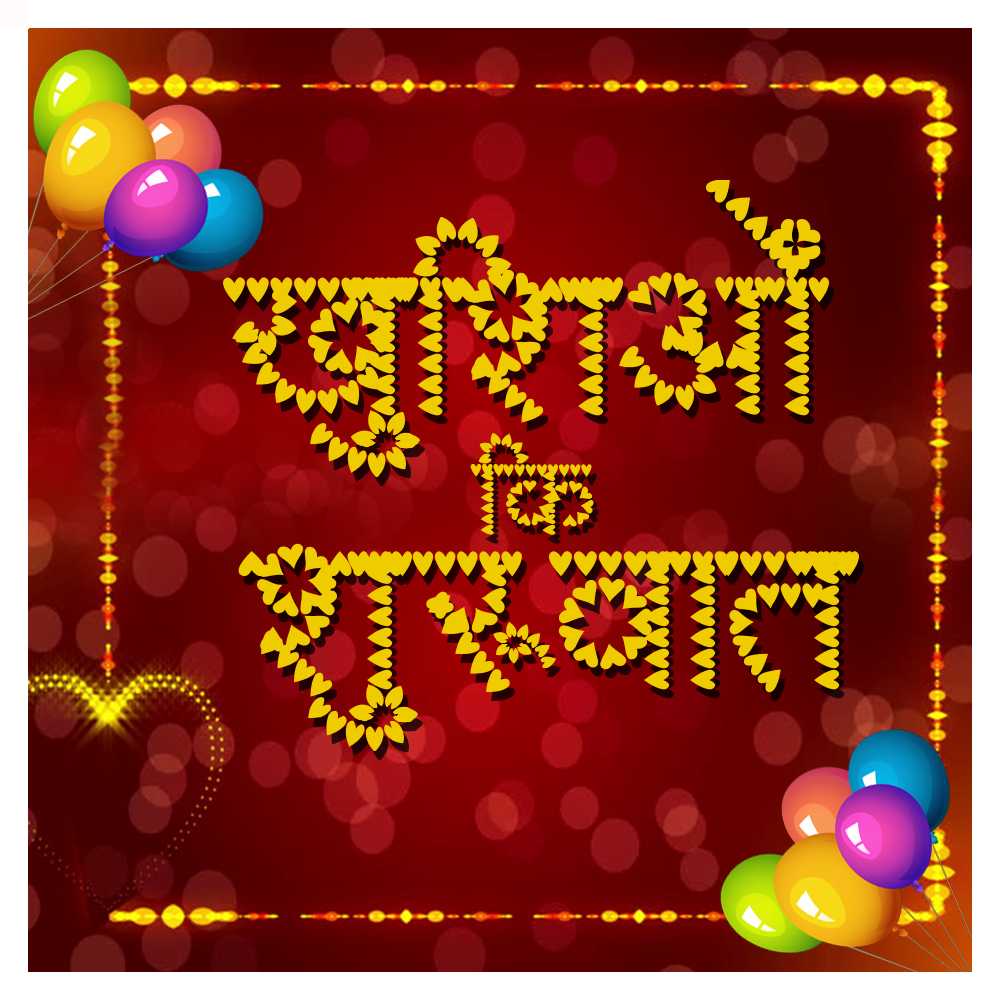
AMS Leafy 3
Bring the beauty of nature into your designs with AMS Leafy 3, a decorative font that captures the essence of organic charm. Whether you're searching for free AMS fonts, specifically looking for AMS Leafy font download options, or exploring AMS decorative fonts, AMS Leafy 3 adds a touch of natural elegance to your projects.
About AMS Leafy 3 Font
Bring the beauty of nature into your designs with AMS Leafy 3, a decorative font that captures the essence of organic charm. Whether you're searching for free AMS fonts, specifically looking for AMS Leafy font download options, or exploring AMS decorative fonts, AMS Leafy 3 adds a touch of natural elegance to your projects. This decorative font combines elegance with functionality, making it perfect for various design applications.
AMS Leafy 3 is a professionally crafted decorative typeface that brings clarity and style to your projects. Designed with attention to detail, it supports hindi and marathi characters flawlessly.
Whether you're working on invitations, headers-titles, cultural-religious-designs, or other creative projects, AMS Leafy 3 delivers consistent performance across both digital and print media. This carefully designed typeface ensures readability and visual appeal in all your design work.
Why Choose AMS Leafy 3?
AMS Leafy 3 excels in various design scenarios. Here are the most suitable applications:
About AMS Leafy 3 Typography Style
AMS Leafy 3 is a professionally crafted decorative font that exemplifies modern Hindi typography design. This free font is perfect for designers seeking versatile design applications.
Available in 1 weight and supporting hindi, marathi scripts, AMS Leafy 3 offers exceptional versatility for both digital and print media. Whether you're working on invitations, headers-titles, cultural-religious-designs, this carefully designed typeface ensures consistent quality and professional results across all your typography projects.